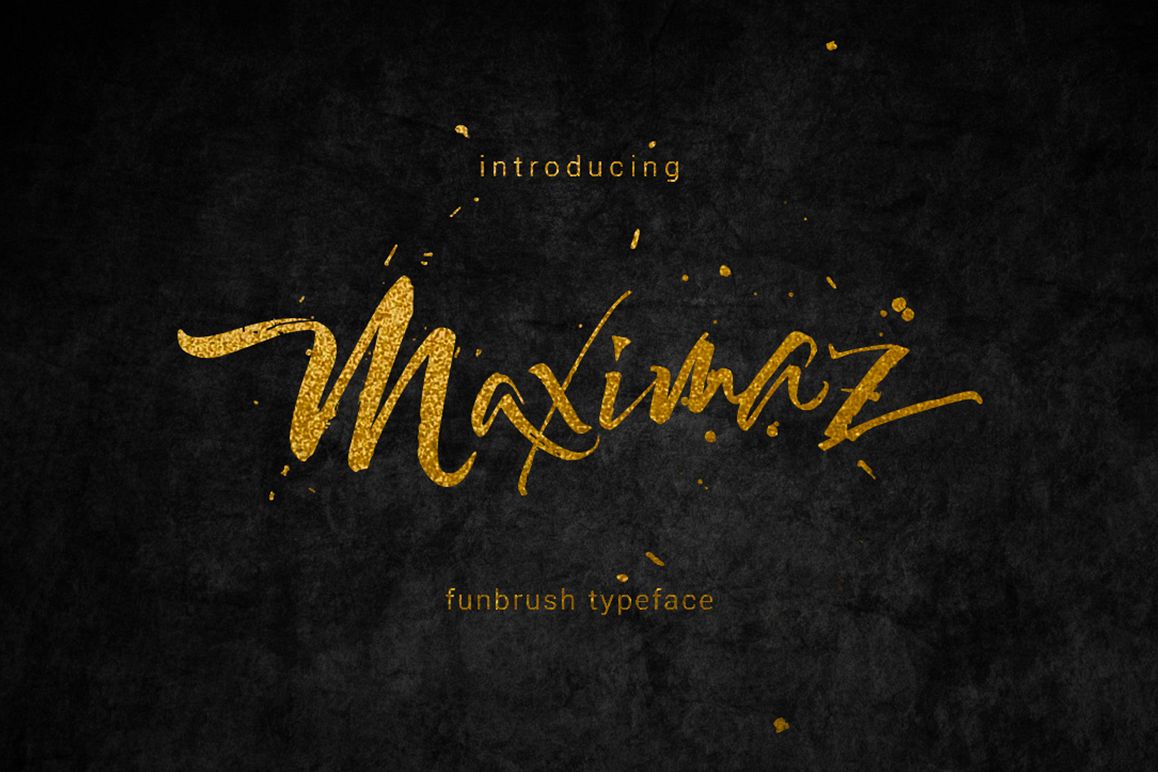
Maximaz Typeface
Maximaz.
Hello world..!! this is Maximaz typeface, simple and easy to create awesome lettering, just type your words and then you will immediately see the great results.
Perfect for: using in ink or watercolor based designs or on its own as bold hand-brushed lettering.
IComes with upper and lowercase characters, can be used for various purposes. such as headings, logos, wedding invitation, t-shirt, letterhead, signage, label, news, posters, badges etc.